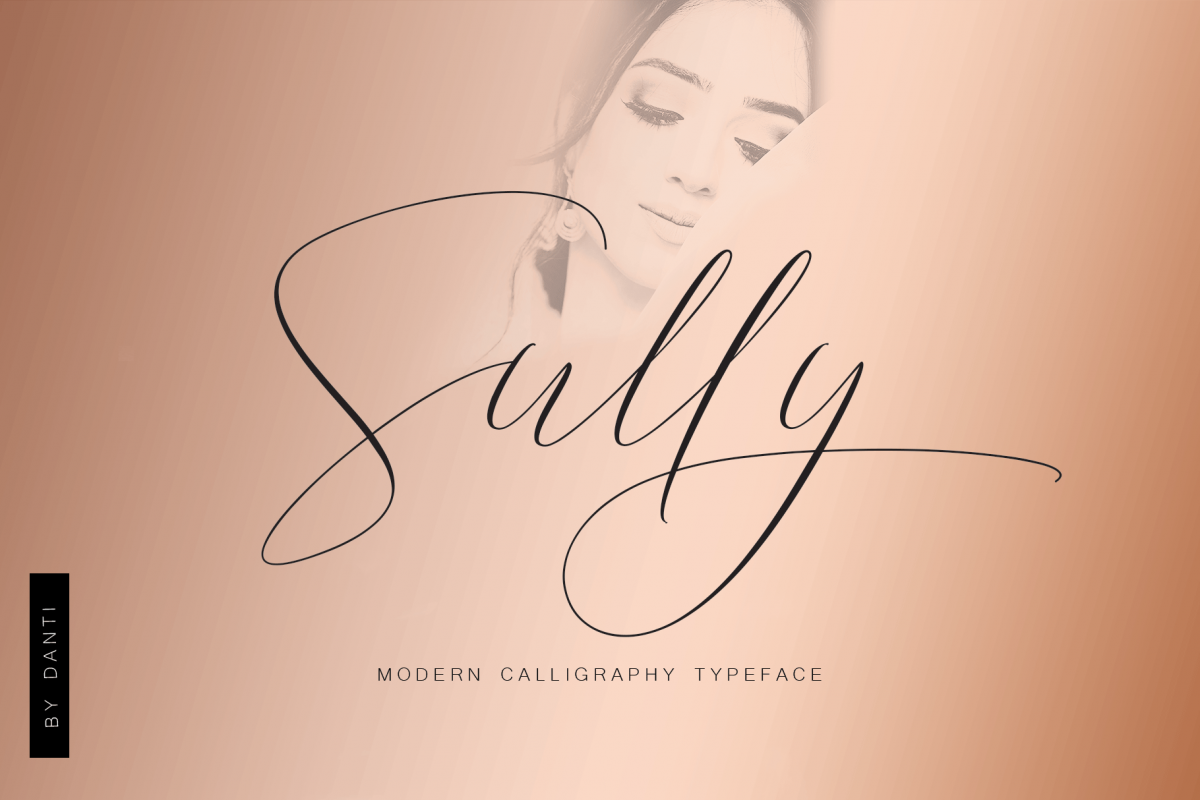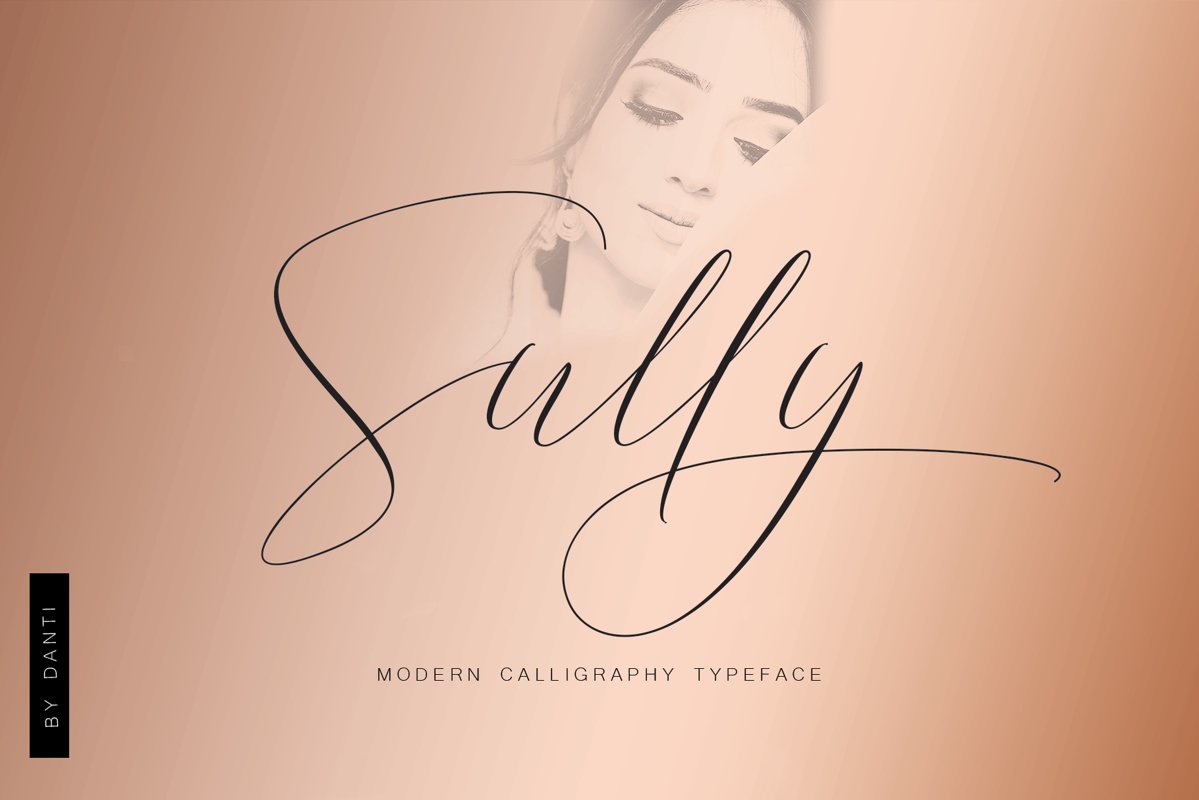
Sully Font Script
Sully a work that is purely a result of handwriting, has a natural characteristic. this is perfect for invitations, signatures, blogs, social media, business cards, product brands.
Sully has Stylistic standard, Stylistic Alternates and ligatures. and includes uppercase and lowercase letters, numbers and punctuation marks.